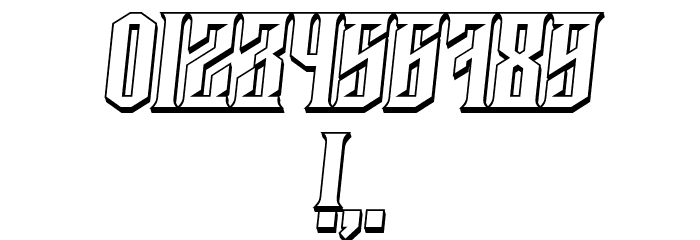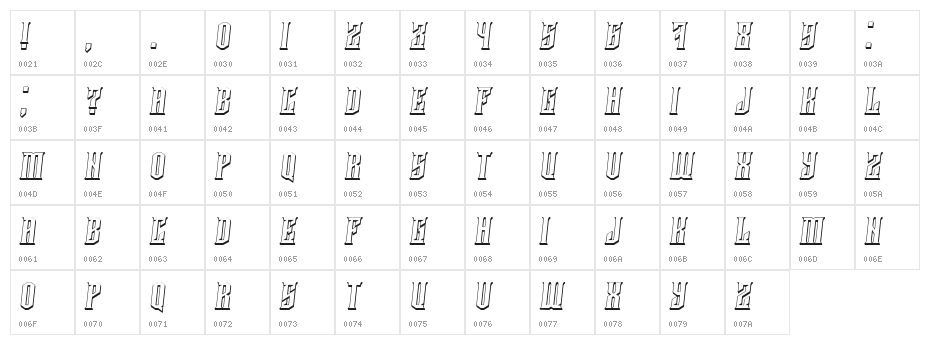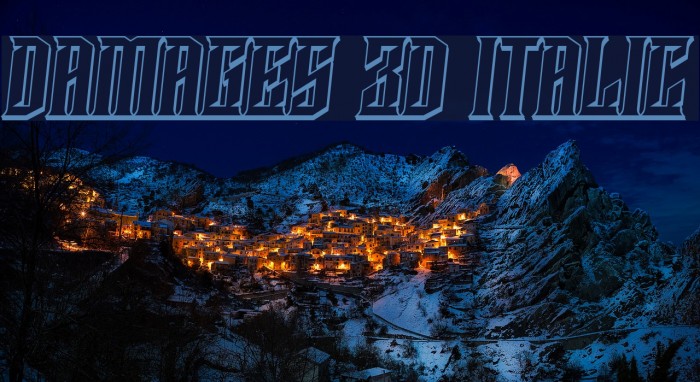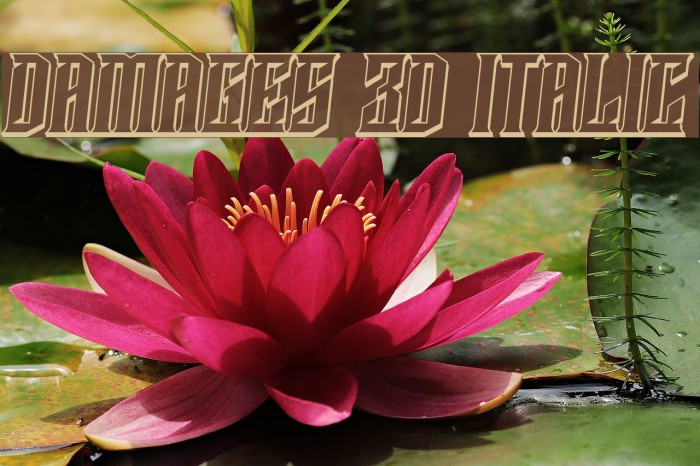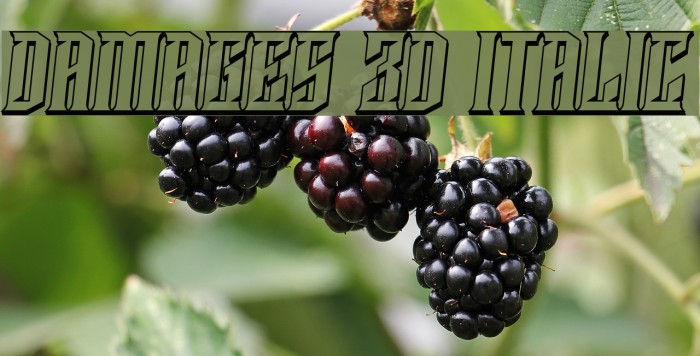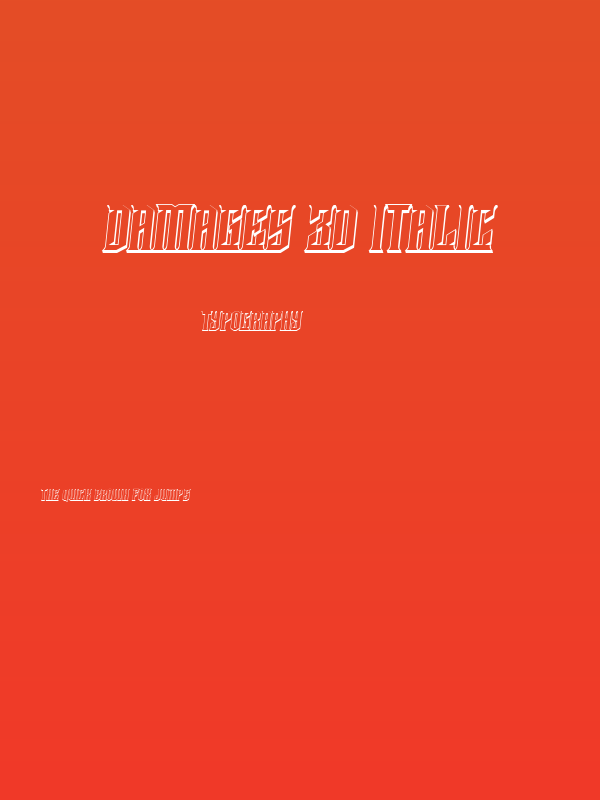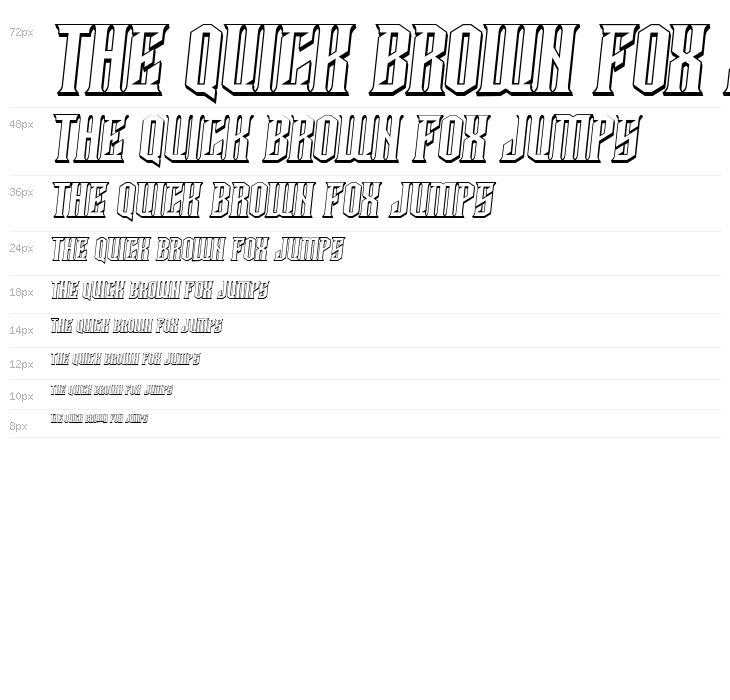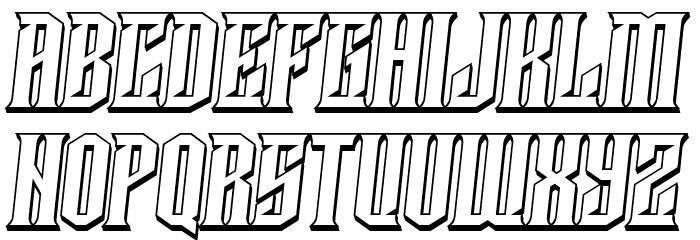
Damages 3D Italic Font
Damages 3D Italic Description
This font features a bold, three-dimensional design with an italic slant, creating a dynamic and impactful appearance. The characters are outlined with a thick, shadowed edge that gives them a sense of depth and dimension. Each letter is sharply angled, contributing to a futuristic and edgy style. The uppercase letters are uniform in height, while the numbers and special characters maintain the same bold and italicized characteristics. The overall design is striking and attention-grabbing, making it suitable for projects that require a strong visual impact.
| Proposed Projects | Ideal for posters, video game titles, logos, and any design needing a bold, futuristic look. |